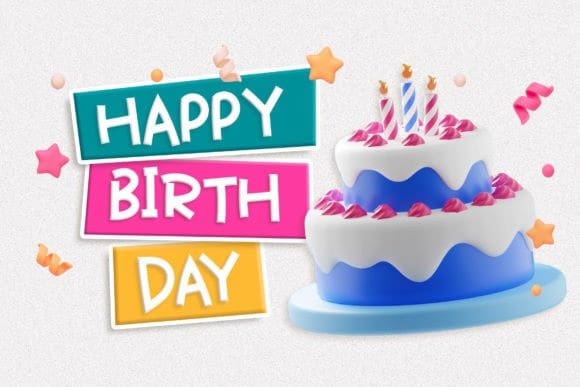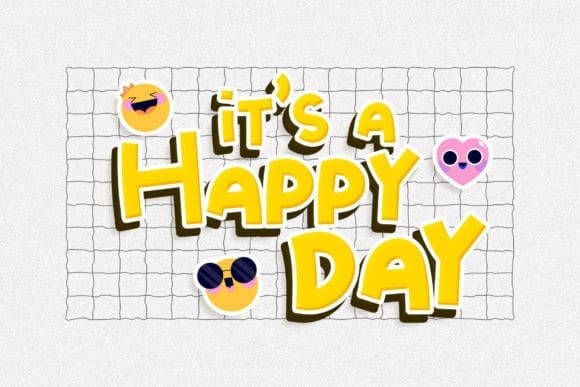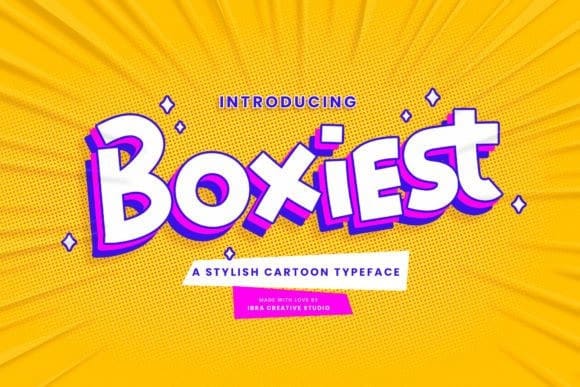
Boxiest Display Font
Boxiest Display Font is a stylish cartoon typeface that effortlessly combines playfulness with a touch of modern flair. Its bold and chunky letterforms are reminiscent of cartoon characters, creating a sense of whimsy and fun. With its clean lines and geometric shapes, Boxiest exudes a contemporary aesthetic that adds a dash of style to any design. Each letter is like a carefully constructed box, giving the typeface a unique and distinctive look. Whether used for children’s books, comic strips, or vibrant signage, Boxiest Display injects a lively and energetic vibe, instantly capturing attention and igniting imagination. This versatile typeface brings a delightful and fashionable twist to any project, making it a perfect choice for those seeking a stylish and eye-catching cartoon-inspired font.